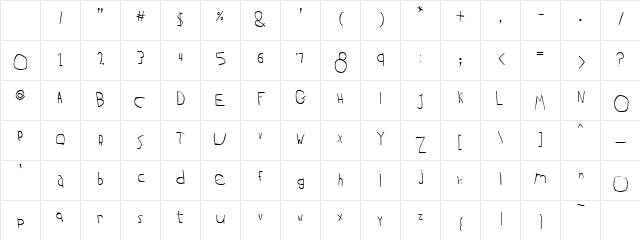
Complete Two Turtle Doves Normal glyph index. Displaying only characters natively supported by Two Turtle Doves Normal font.
Two Turtle Doves is a composed and adaptable typeface that performs quietly and consistently across a wide range of design contexts.